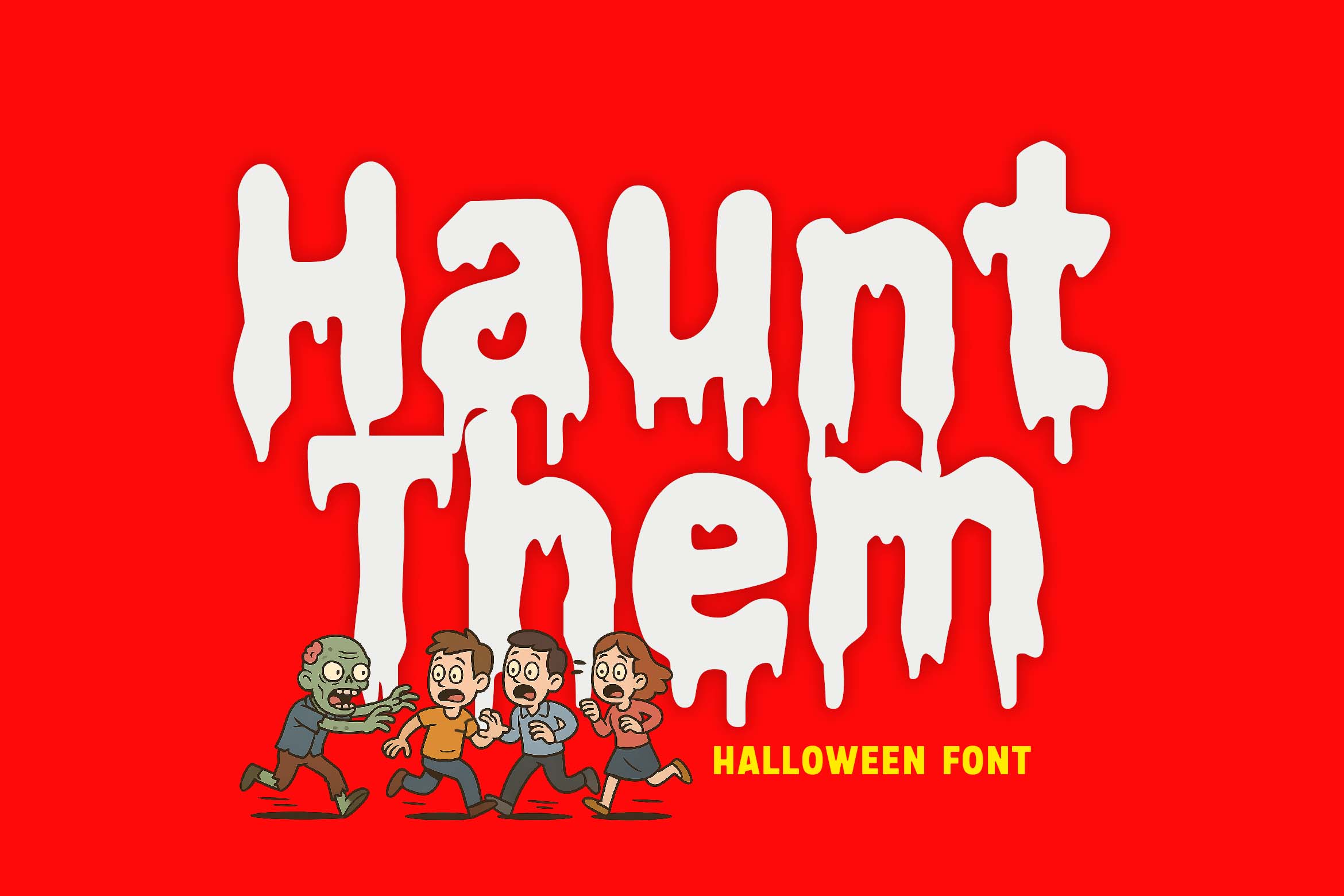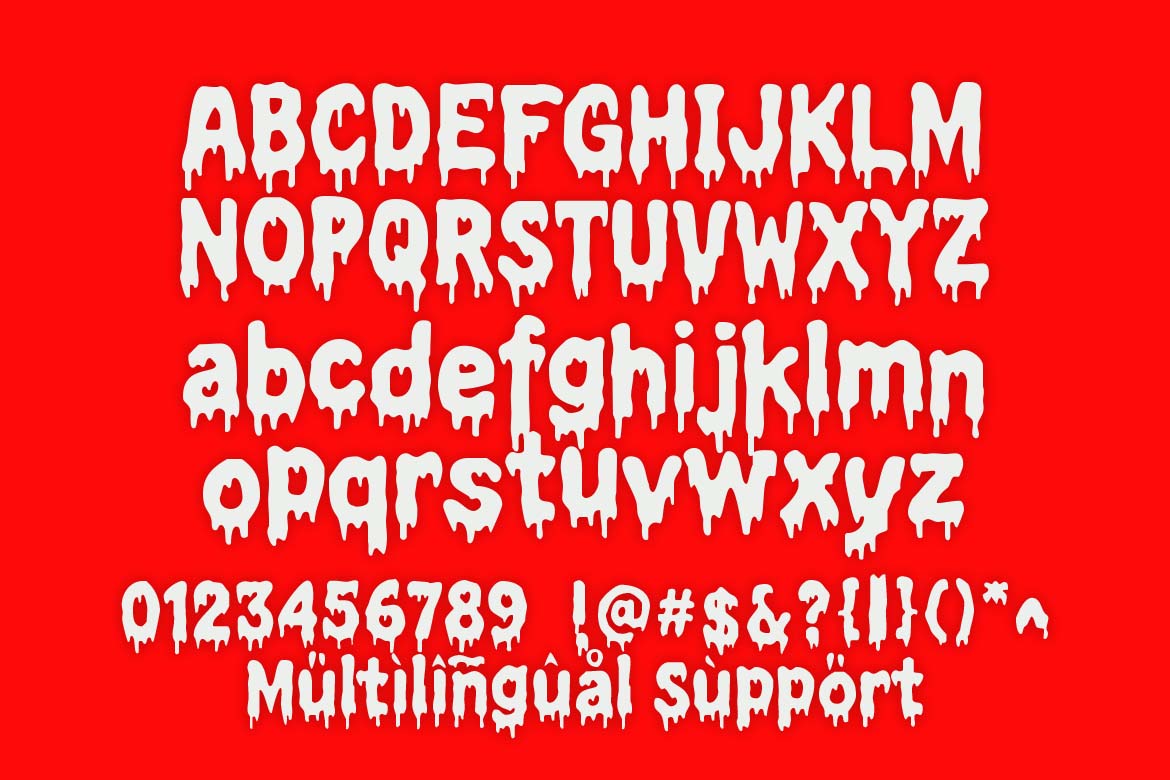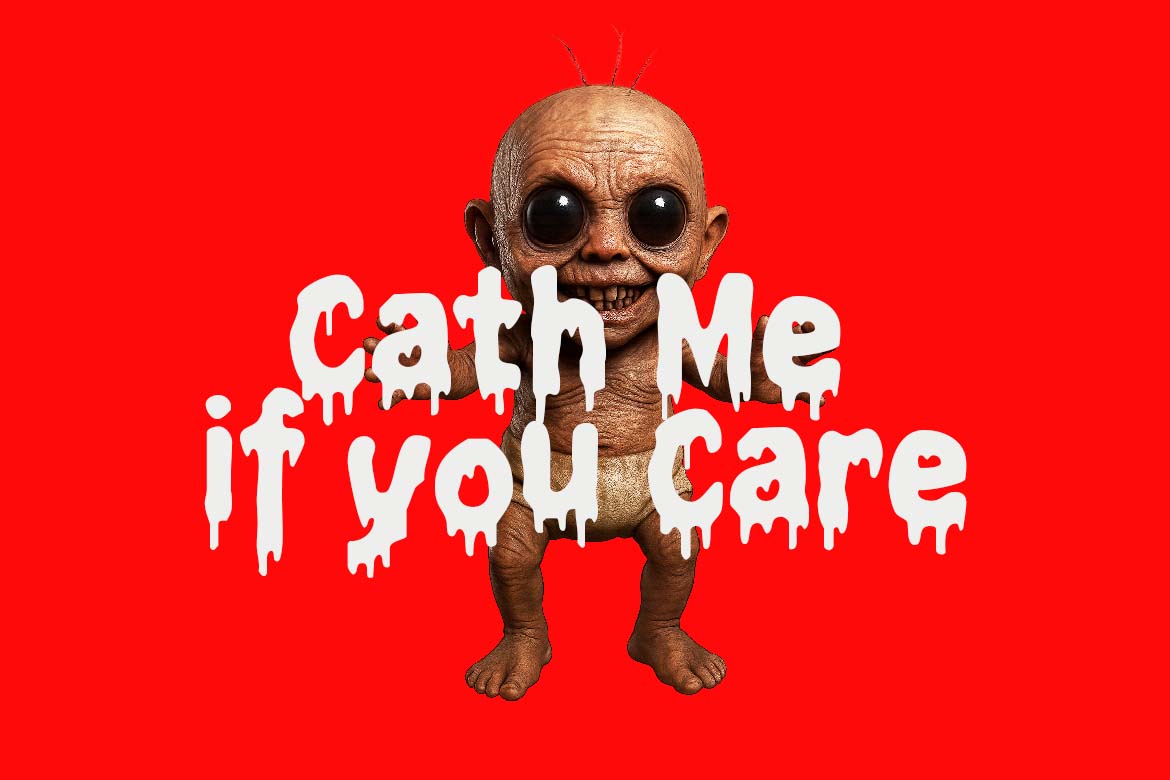
Haunt Them
Haunt Them – A Unique Dripping Font for Halloween Branding & Product Design
Add a spooky twist to your next design project with Haunt Them, a playful and creepy display font from Primefont.com. Featuring bold characters with dramatic drips, this unique font is perfect for Halloween themes, horror branding, and eye-catching product packaging.
Haunt Them brings an eerie yet fun personality to your visuals. It’s ideal for food and snack branding, haunted house flyers, or any creative logo that dares to stand out. The exaggerated drips give each letter a melting, ghostly vibe—perfect for scaring up attention in both casual and corporate campaigns.
Best suited for:
• Halloween and horror-themed branding
• Spooky food or candy products
• Children’s or horror-themed logos
• Enterprise use for seasonal marketing or merchandise
• Haunted event posters and digital ads
The dripping style makes it ideal for projects that need to feel fun, gross, or a little monstrous—yet still clean and readable. Whether you're creating a quirky brand identity or a Halloween promotion for a big corporate client, Haunt Them has your back.